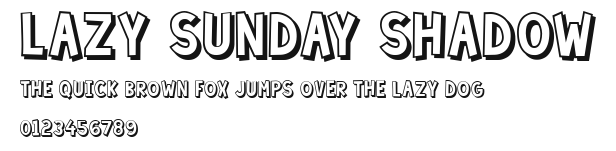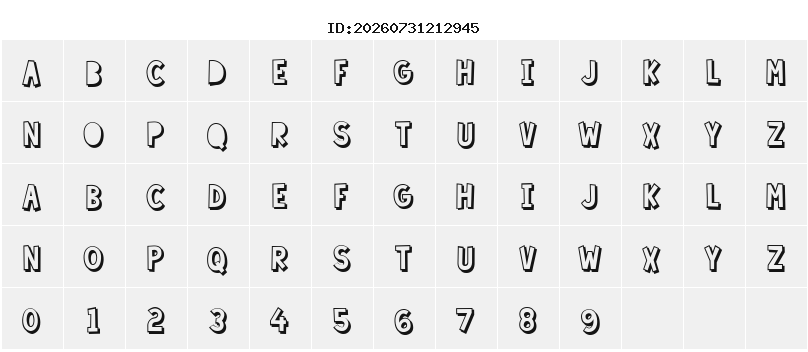
• Font Name: Lazy Sunday Shadow
• Font Style: Shadow
• Designer: Frédéric Rich
• Manufacturer: Frédéric Rich
About Lazy Sunday Shadow.ttf
Lazy Sunday Shadow.ttf is a modern, elegant sans-serif font designed for ultimate readability and visual harmony. Perfect for branding, headlines, web design, and print materials.